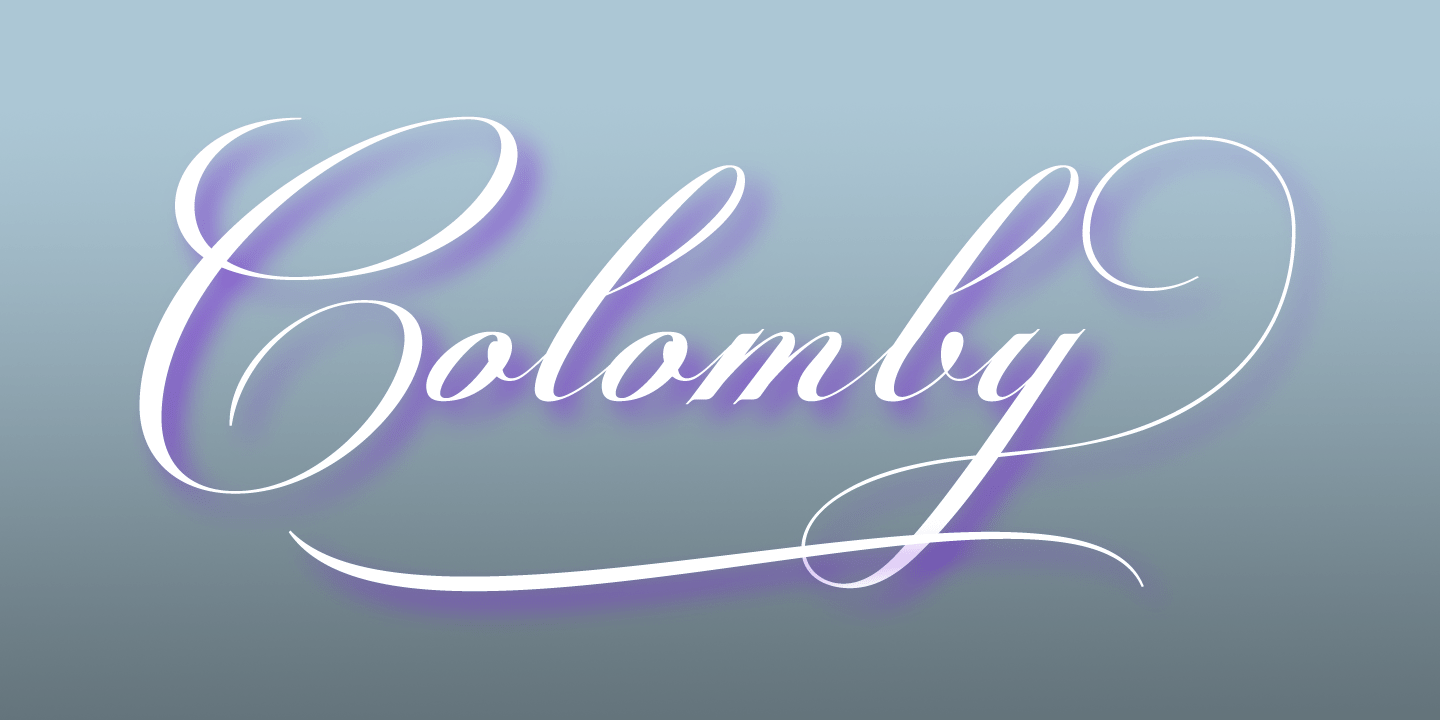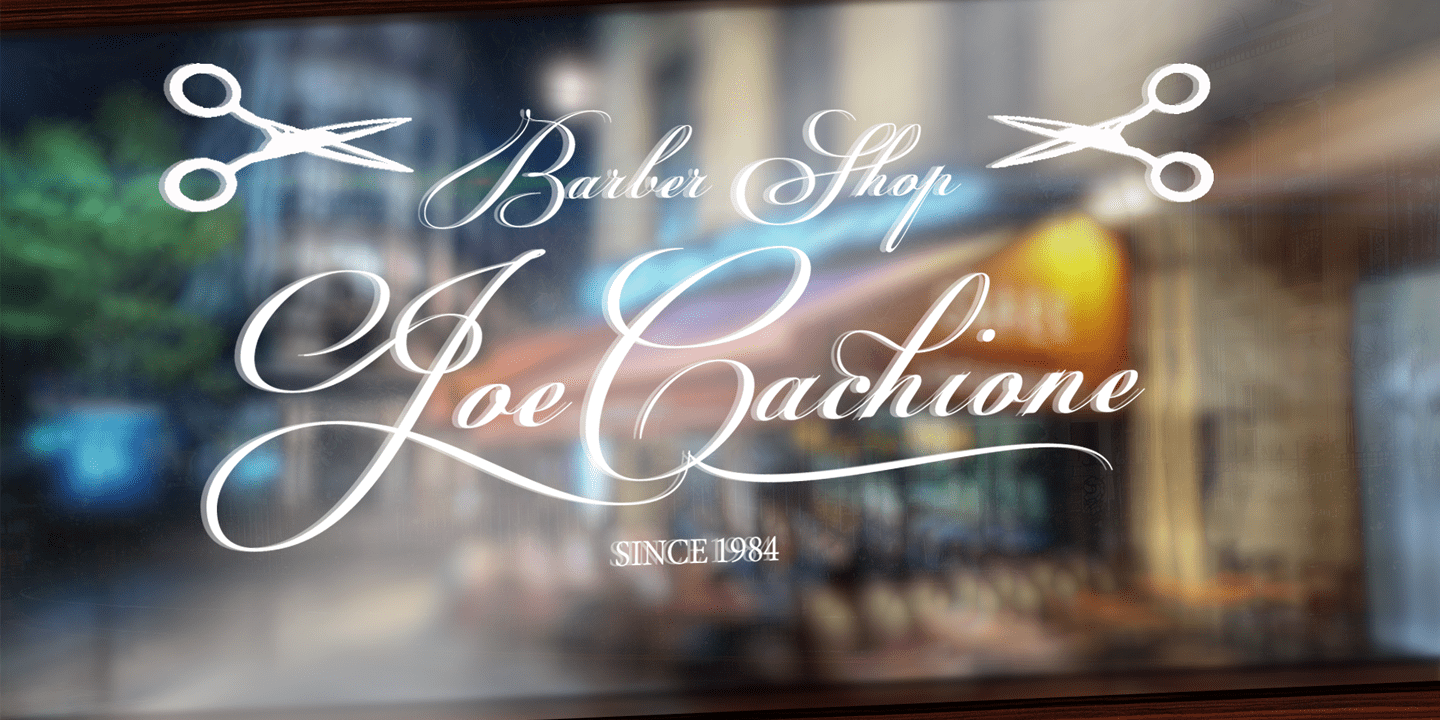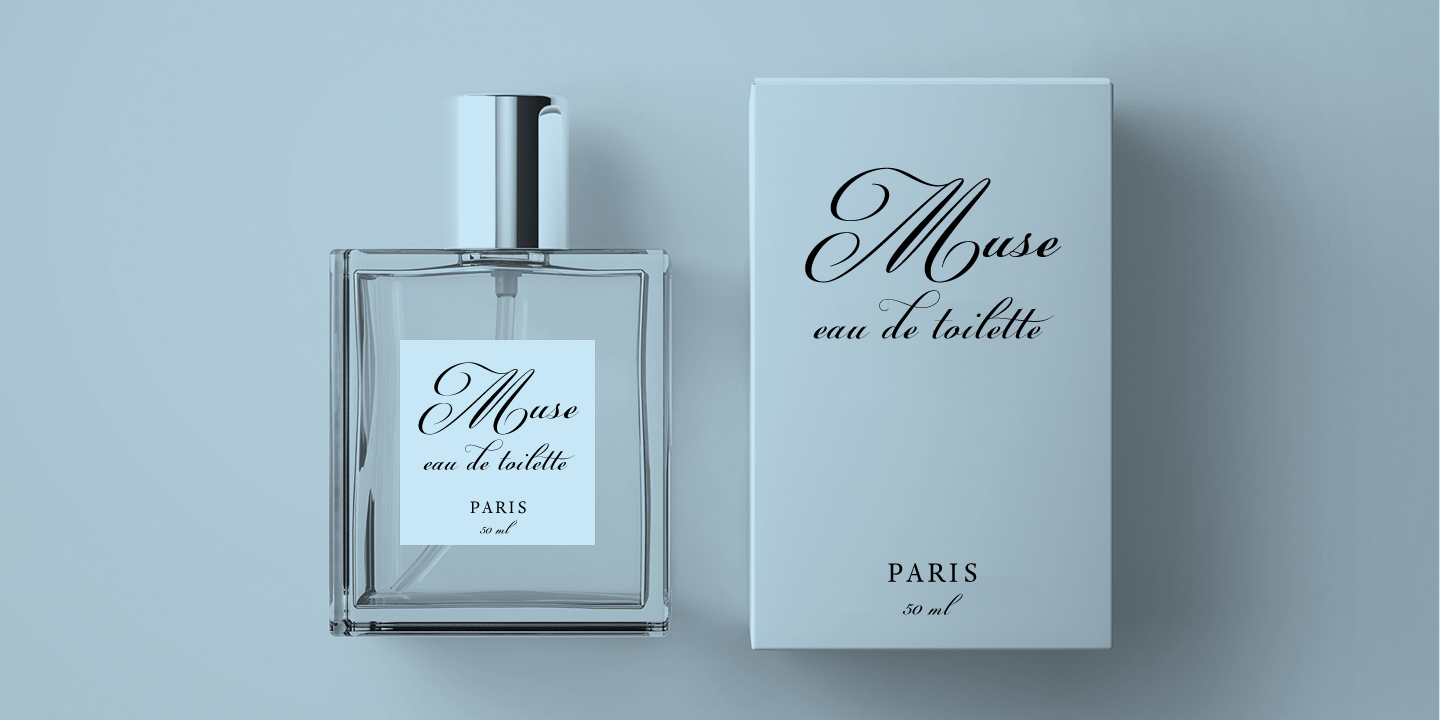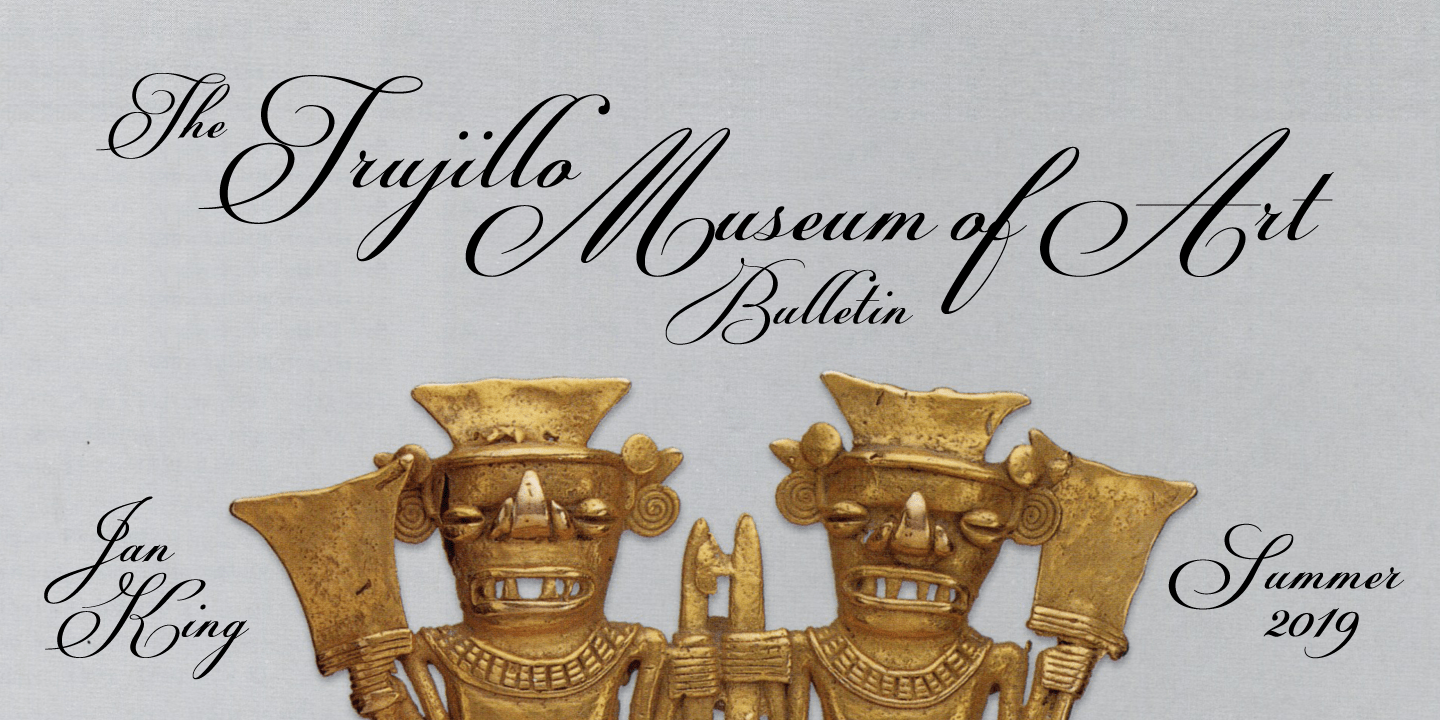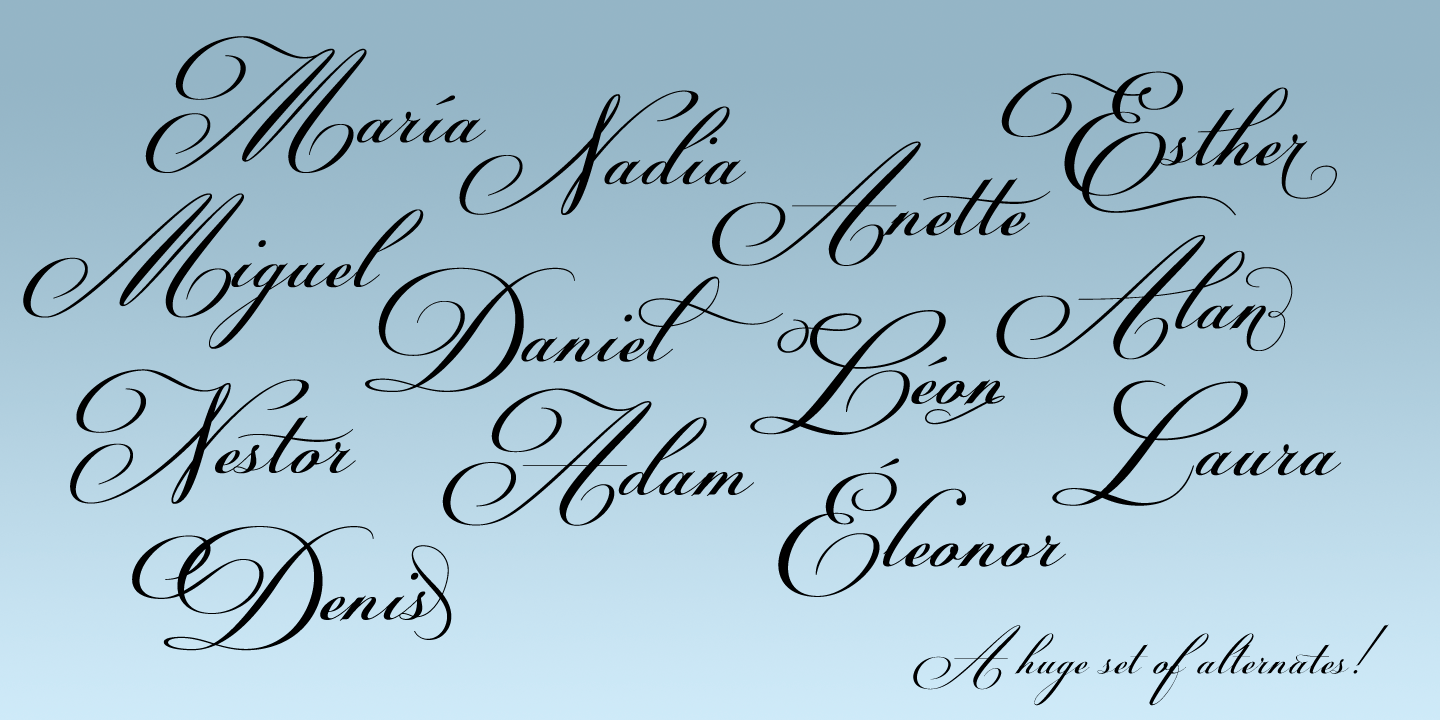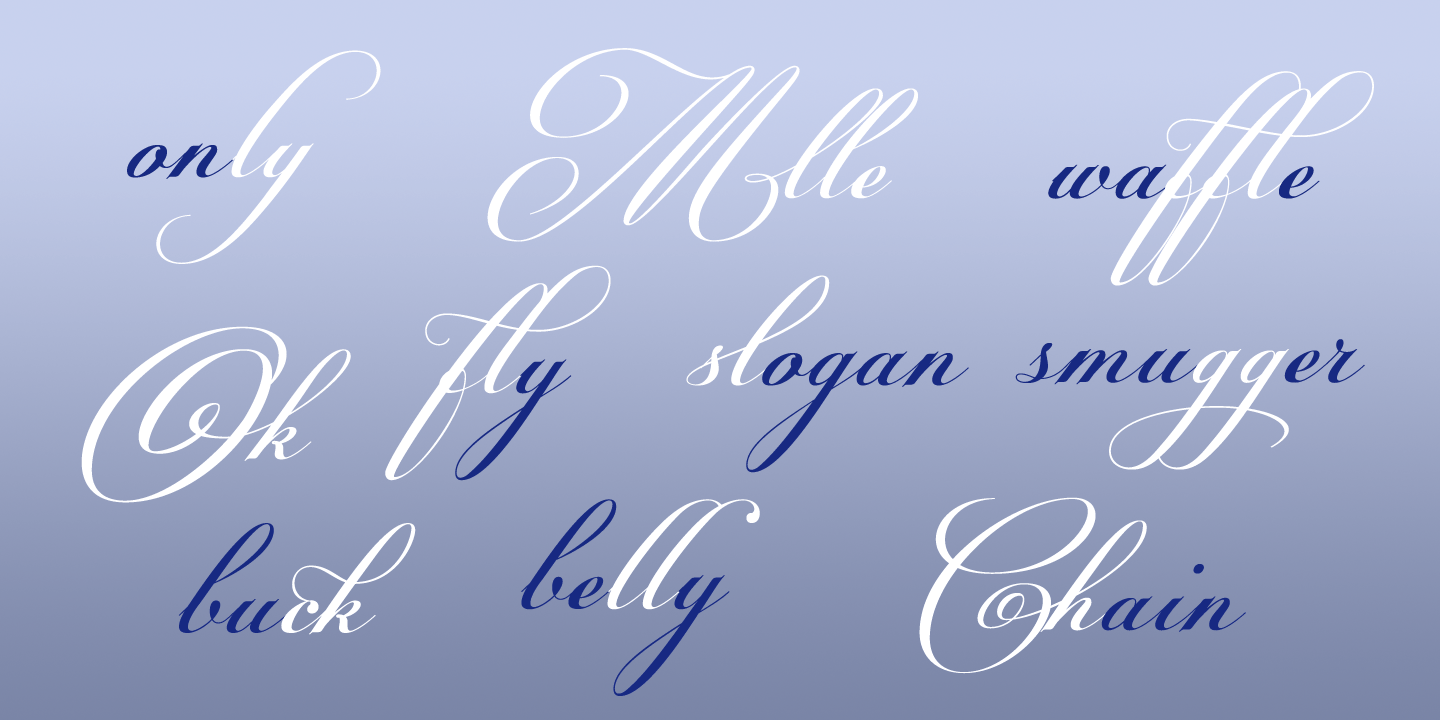
Colomby
Font Family by Eurotypo
Colomby is a contemporary calligraphic font with classical roots, based on an 18th-century English manuscript. It is carefully designed, with a special emphasis on the connection of the letters, with high ascenders to give rise to the ornaments of the different letters. There is a special search for high readability. In addition, a wide selection of alternates and ligatures is included, to preserve the qualities of handwriting, in order to accommodate various design aesthetics. These alternatives are automatically applied through an advanced programming scheme or manually through several OpenType features.
The copperplate or English round handwriting style has a great inclination with extensive extensions of ascending and descenders strokes, widely ornate. Colomby is a contemporary calligraphic font with classical roots, based on an 18th-century English manuscript. It is carefully designed, with a special emphasis on the connection of the letters, with high ascenders to give rise to the ornaments of the different letters. There is a special search for high readability. In addition, a wide selection of alternates and ligatures is included, to preserve the qualities of handwriting, in order to accommodate various design aesthetics.
These alternatives are automatically applied through an advanced programming scheme or manually through several OpenType features.